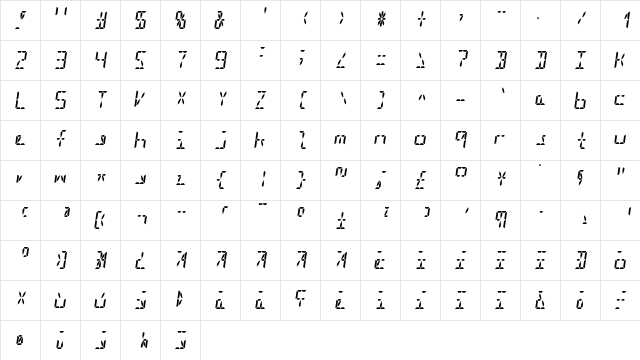
Segment16B Bold Italic
Design Context for Segment16B Typeface
Segment16B takes a measured approach to typography — its balanced proportions and neutral character make it a reliable workhorse for both digital and print work. The slanted form adds forward momentum and visual energy. Its bold stroke weight gives it real presence on the page.